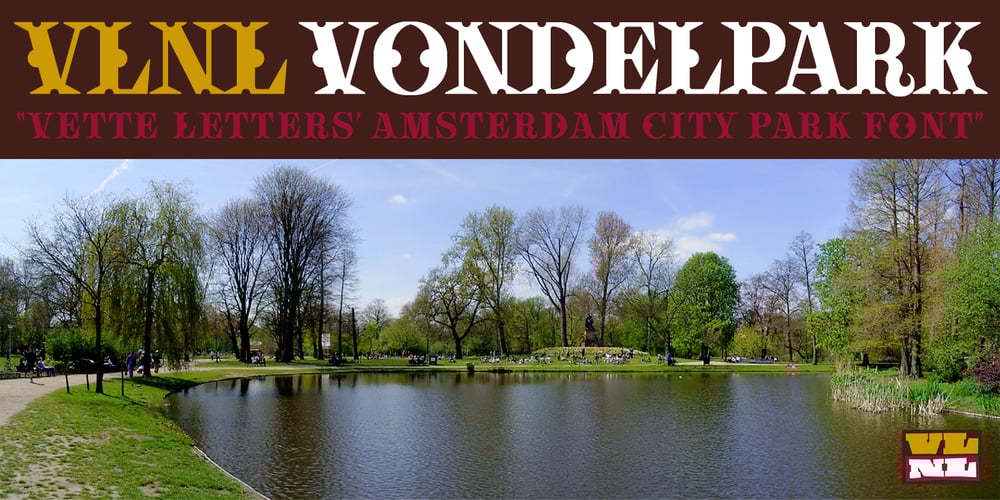
VLNL Vondelpark
VLNL Vondelpark font
VLNL Vondelpark Font Family was designed by Donald Beekman and published by VetteLetters. VLNL Vondelpark contains 1 styles and family package options. The Vondelpark is the famous Amsterdam city park, 47 hectares stretching out from Leidseplein to the Amstelveenseweg. It was founded in 1864 when a group of well-to-do Amsterdam citizens got together and bought land at the (then) edge of the city centre in order to create a park ‘for riding and strolling’. Designed by architect J.D. Zocher, it opened officially in 1865. The park received its name two years later when a statue of Dutch writer Joost van den Vondel was placed in the park. In the 1960s and 1970s the Vondelpark became a symbol and epicenter of the hippie flower power era. The park was declared a state monument in 1996. Donald DBXL was intrigued by the handmade iron nameplate lettering on the park’s entrance gates, and decided to design VLNL Vondelpark in its glory. The somewhat clumsy iron letters were not revived as is but optimized to turn it into a useful typeface. The all-caps serif with a deliberate constructed feel, contains a Positional Open Type feature that places half circles on the vertical stems, at the beginning and end of a word, to enliven the rhythm.